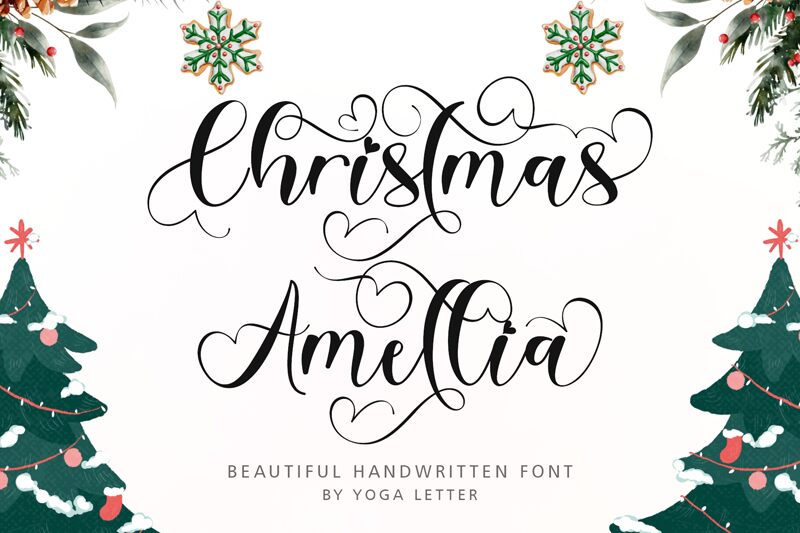
Christmas Amellia font by Yoga Letter is a free font decorated lavishly with ornate curls and swirls. The decorative, sophisticated text makes for a stunning visual that can elevate all your classic Christmas and New Year designs. Christmas Amellia is elegant in its visual presence and lively in its character due to its looping style.
To introduce magic to your presentations and artwork, use Christmas Amellia in your promotional ads for special Christmas offers, flyers for your business, and even store branding designs. The lovely font can be used in commercial and personal capacity for food businesses, wedding planning, event management, and countless others.